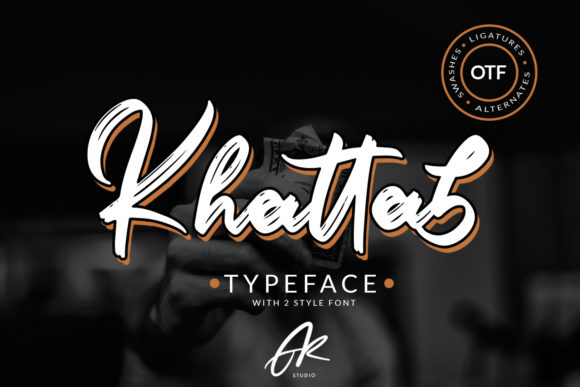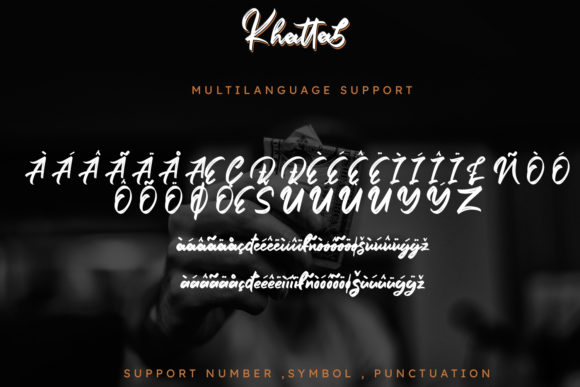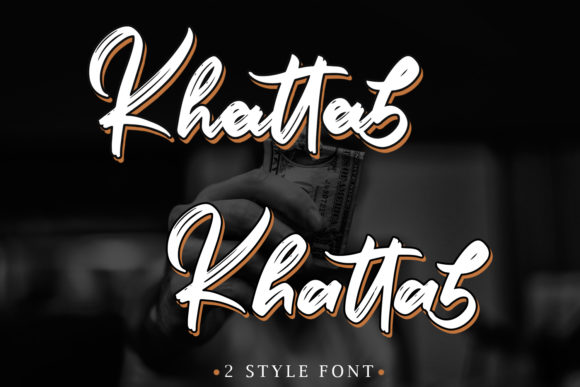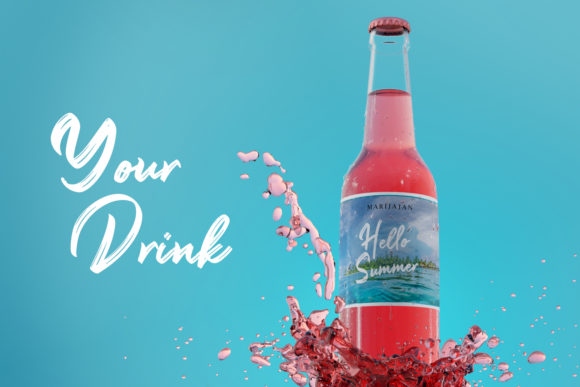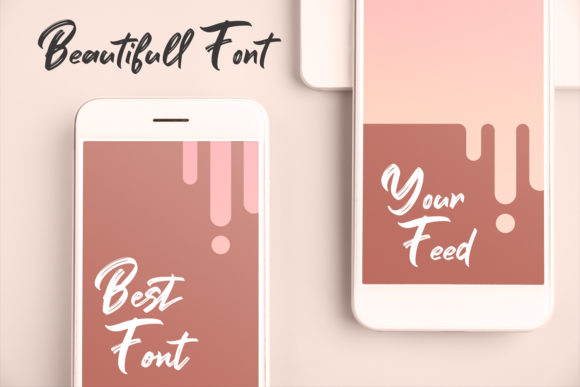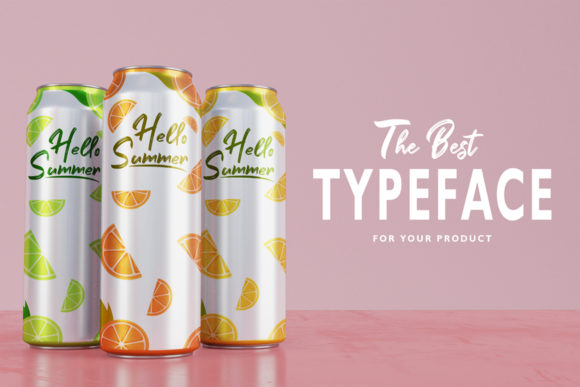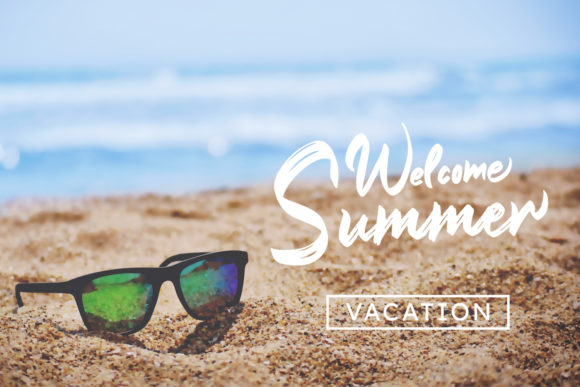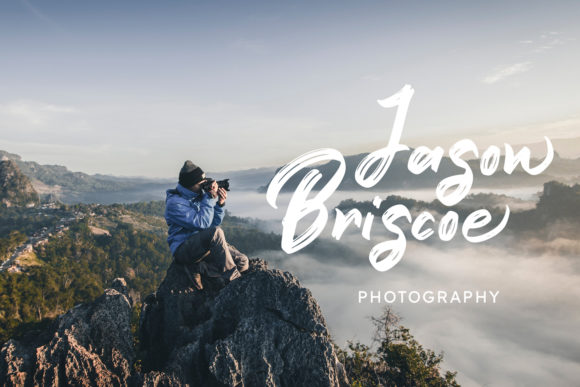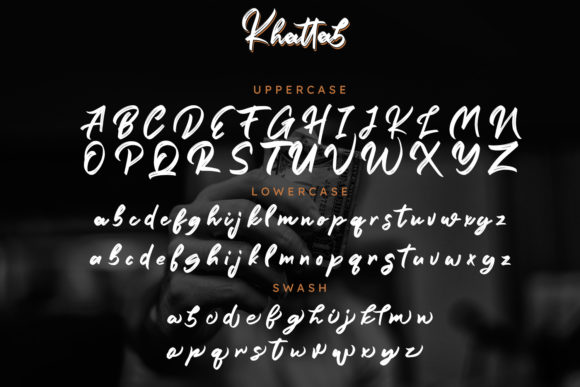
HomeScript FontsKhattab Font Script Fonts Khattab Font FacebookXPinterestWhatsApp Khattab Font Poster 2 Khattab Font Poster 3 Khattab Font Poster 4 Khattab Font Poster 5 Khattab Font Poster 6 Khattab Font Poster 7 Khattab Font Poster 8 Khattab Font Poster 9 Khattab Font Poster 10 About Khattab Font Khattab is a bold and modern script that will turn any design idea into a standout! DOWNLOAD ON CREATIVE FABRICAThis font is sold and delivered by Creative Fabrica. Font Canyon may earn a commission if you buy through this link. People also explored MTF Cupcake PRO Buttelia Font Nutella Font Live Content Samanthy Font Bellagia Font Bunny Font Kempton Duo Font Candy Cane Font 565 0 TagsKhattab Font Previous articleBilal FontNext articleSupremo Font LEAVE A REPLY Cancel reply Comment: Please enter your comment! Name:* Please enter your name here Email:* You have entered an incorrect email address! Please enter your email address here Website: Save my name, email, and website in this browser for the next time I comment. Personal Use Free Hanberra Personal Use Free Read more about this font Vuldo Personal Use Free Read more about this font Amellis Path Personal Use Free Read more about this font Sellena Brush Font Personal Use Free Read more about this font BLOG Top 7 Google Fonts Alternatives for Faster and Privacy-Friendly Web Design (2025) Top 7 Google Fonts Alternatives for Faster and Privacy-Friendly Web Design (2025) When it comes to web typography, Google Fonts has long been the go-to... The 10 Best Handwriting Fonts to Add Personality to Your Designs Best Fonts for T-Shirt Design – Top 2025 Picks Transform Your Website: Elevate Your Typography with 7 Best Web Font Generators